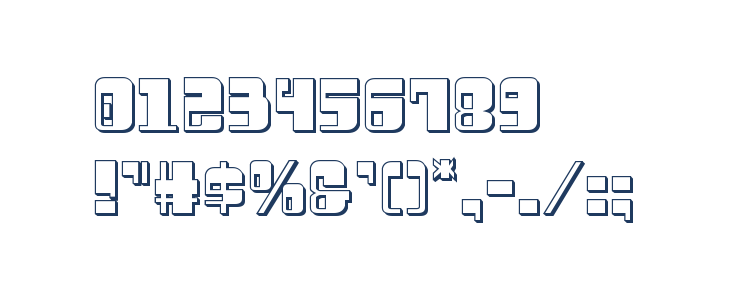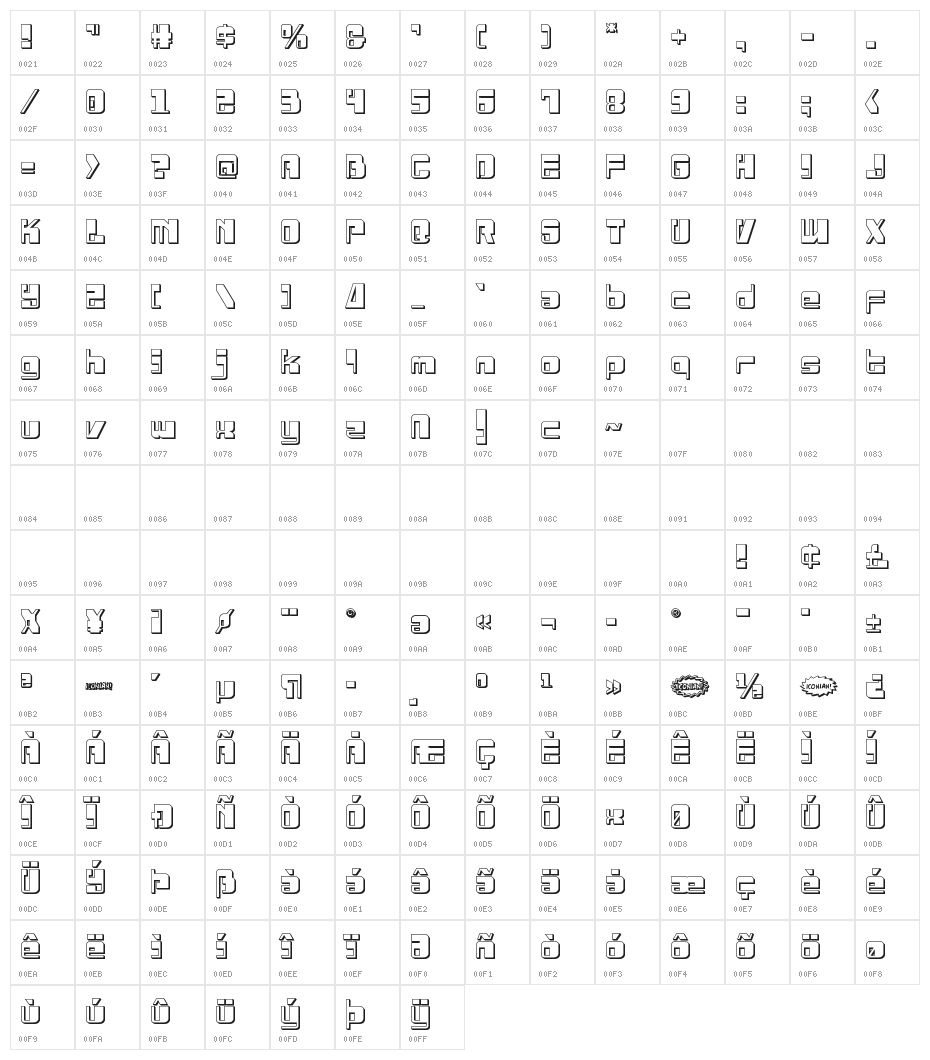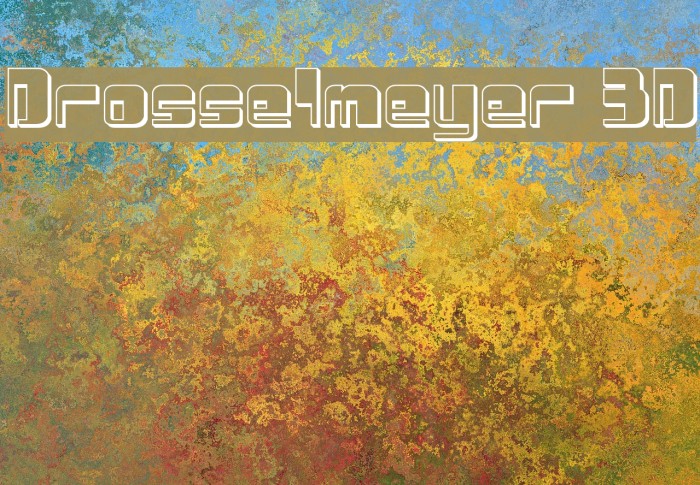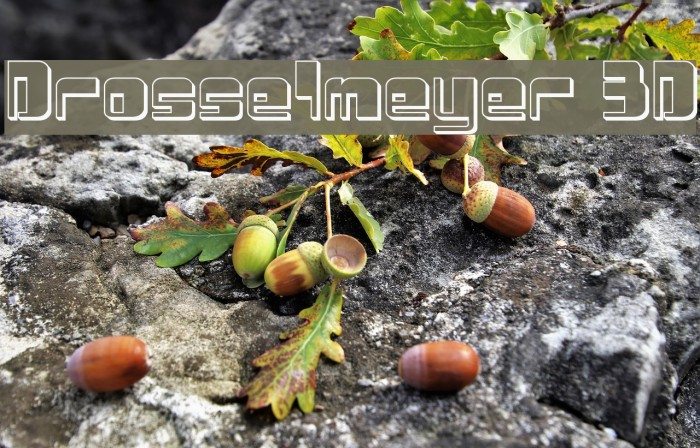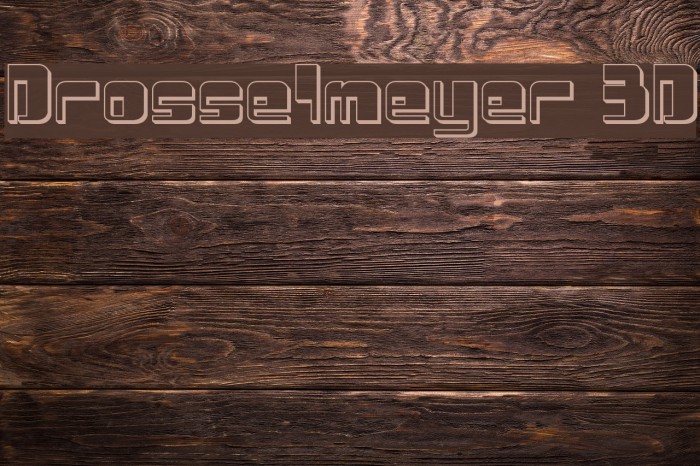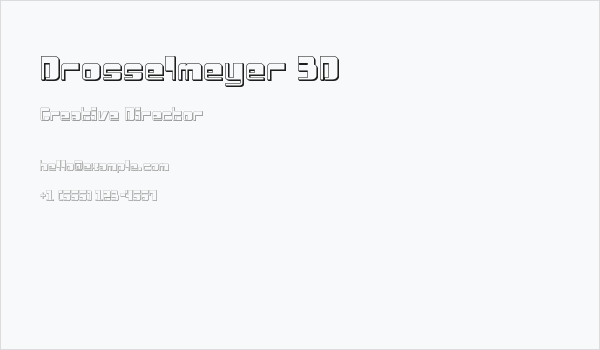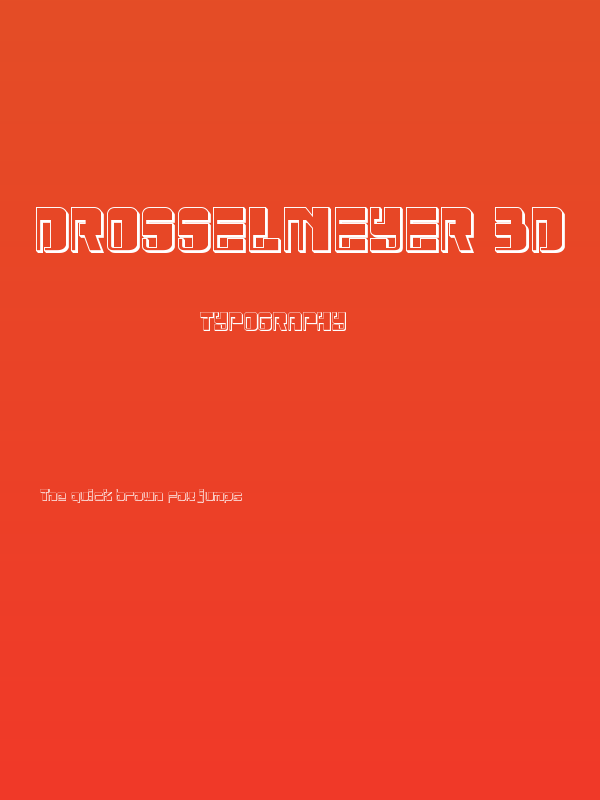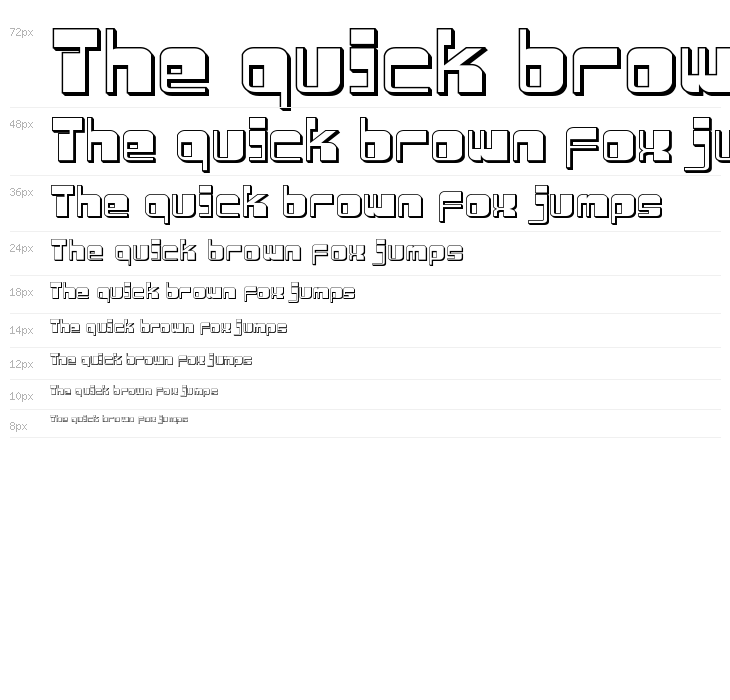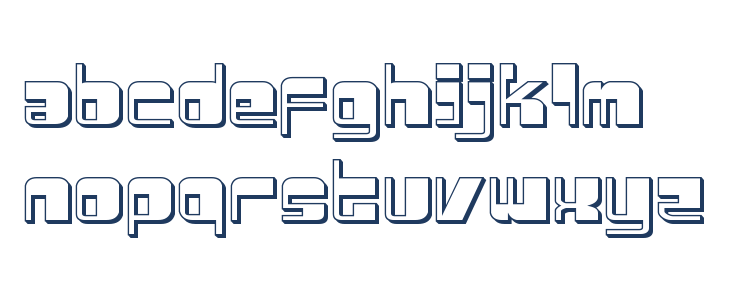
Drosselmeyer 3D Font
Drosselmeyer 3D Description
This font features a bold, three-dimensional outline style that gives each character a distinct, futuristic appearance. The uppercase and lowercase letters maintain a consistent geometric structure, with sharp angles and clean lines that create a sense of depth. The numerals and special characters follow the same design principles, ensuring a cohesive look across all glyphs. The font's unique style makes it stand out, with a modern and edgy vibe that is both eye-catching and versatile. Its structured form and open counters enhance readability while maintaining a strong visual impact.
| Proposed Projects | Ideal for sci-fi themed projects, video game titles, posters, and branding that requires a modern and striking appearance. |